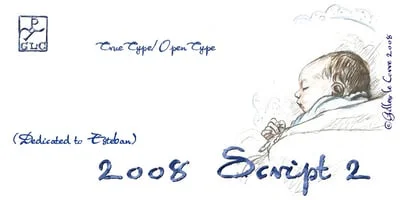
2008 Script 2
This nostalgic typeface is perfect for retro tech brands, Y2K aesthetic projects, early social media campaigns, millennium anniversary events, vintage digital art, 2000s nostalgia marketing, throwback gaming interfaces, retro web design, early internet culture celebrations, vintage blog designs, millennium memorabilia, and digital archaeology projects. The font's period-specific design makes it ideal for projects that celebrate the unique aesthetic of the late 2000s era and early digital culture.
2008 Script 2 Font is exciting because it captures the optimistic spirit and digital awakening of the late 2000s through its contemporary script letterforms and era-specific character structure. The font's flowing curves and modern proportions create an atmosphere of technological hope, social connectivity, and cultural transformation, making it perfect for brands that want to convey innovation, nostalgia, and the pioneering spirit of early digital communication. Its period personality ensures instant recognition while maintaining excellent readability across various nostalgic applications.
The 2008 Script 2 Font family includes multiple millennium variations: Light Blog, Regular Social, Medium Digital, Bold Network, and Black Revolution weights, each available in standard and stylized versions. Special era editions feature tech-inspired alternates, early internet symbols, and Y2K ornaments that enhance the font's nostalgic appeal, providing designers with comprehensive tools for creating authentic 2000s-era communications.
Relive the digital revolution with 2008 Script 2 Font – a typeface that embodies the transformative energy and optimistic spirit of the late 2000s. Whether you're developing retro tech branding, nostalgia marketing campaigns, or millennium-themed projects, this font delivers the period authenticity and cultural significance your projects need while ensuring exceptional performance and nostalgic impact across all 2000s and early digital applications.